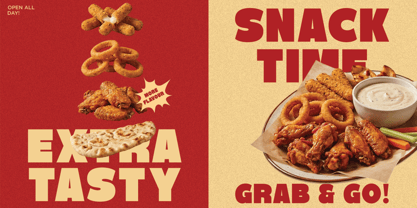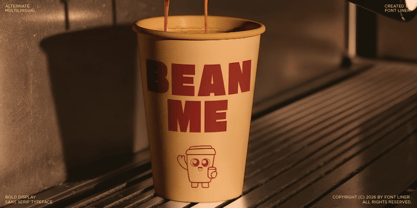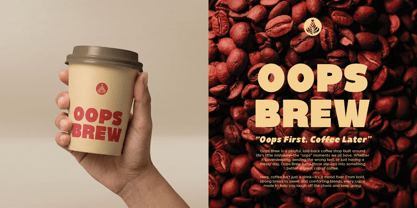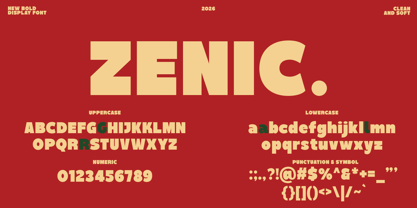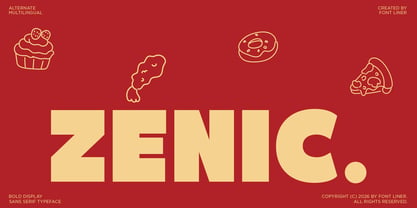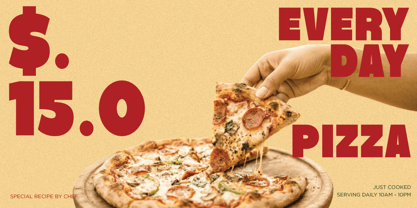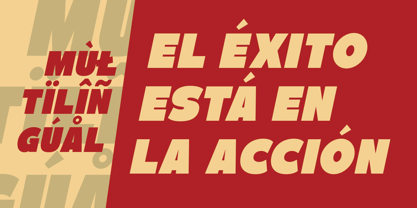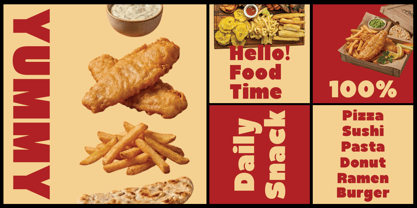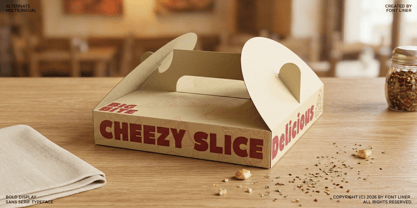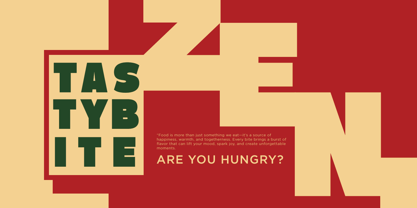
FL Zenic
Zenic is a bold display sans serif font designed to deliver strong visual impact with a playful and modern twist. Its solid letterforms and clean structure create a confident presence, while subtle rounded details give it a friendly and approachable character. This balance makes Zenic both eye-catching and versatile for a wide range of creative uses.
Perfect for branding, packaging, food-related designs, and bold headlines, Zenic stands out effortlessly in both print and digital formats. Its thick strokes and high readability ensure clarity even at large sizes, making it ideal for logos, posters, and promotional materials. The playful tone also makes it a great fit for lifestyle and fun-driven brands.
With multilingual support and alternate characters, Zenic offers flexibility for global and creative projects. Whether you're designing for a modern brand or a vibrant product line, Zenic brings energy, clarity, and a bold personality to your typography.
• Zenic Regular
• Zenic Italic
• Stylistic alternates
• Uppercase, Lowercase & Ligatures
• Symbol, Number and Multilingual Support
• Multilingual Support